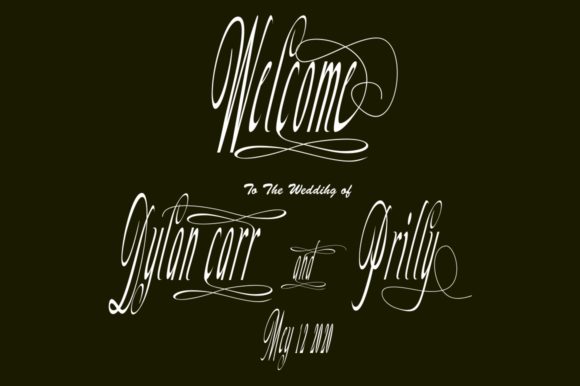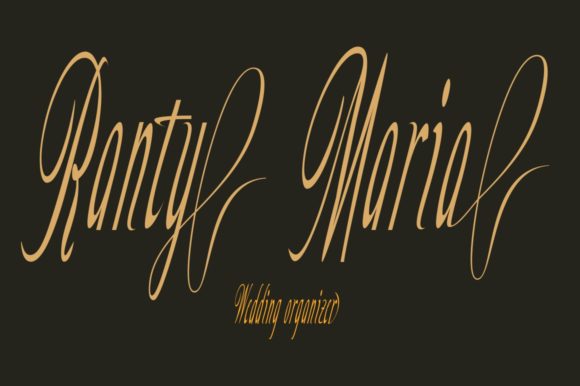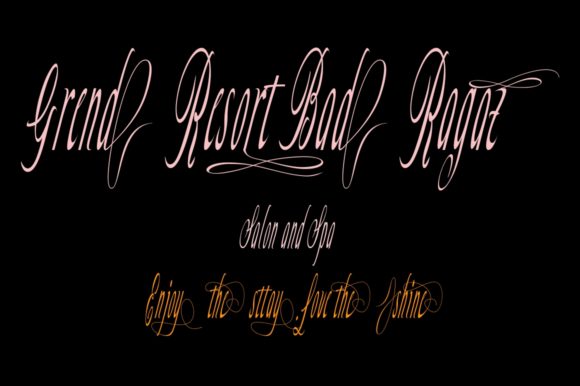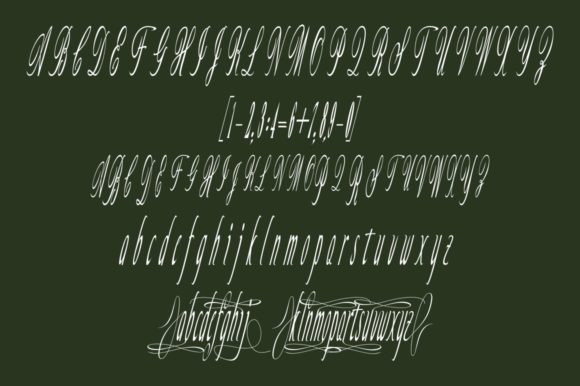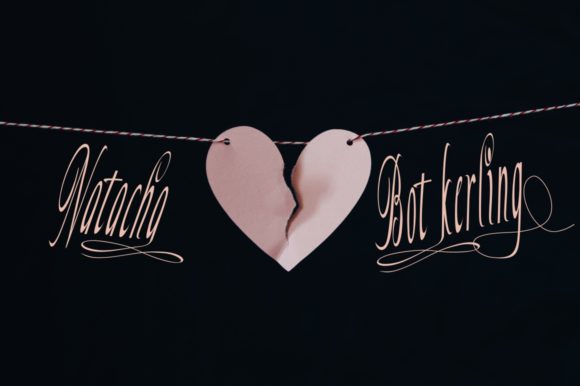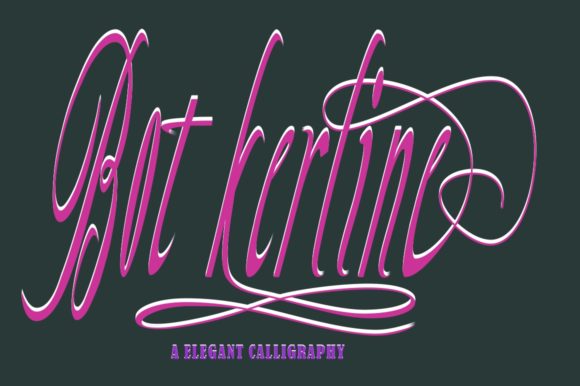
Willona Font
About Willona Font
Willona updates classic calligraphy with a modern approach to design, delivering an incredibly sophisticated font experience.